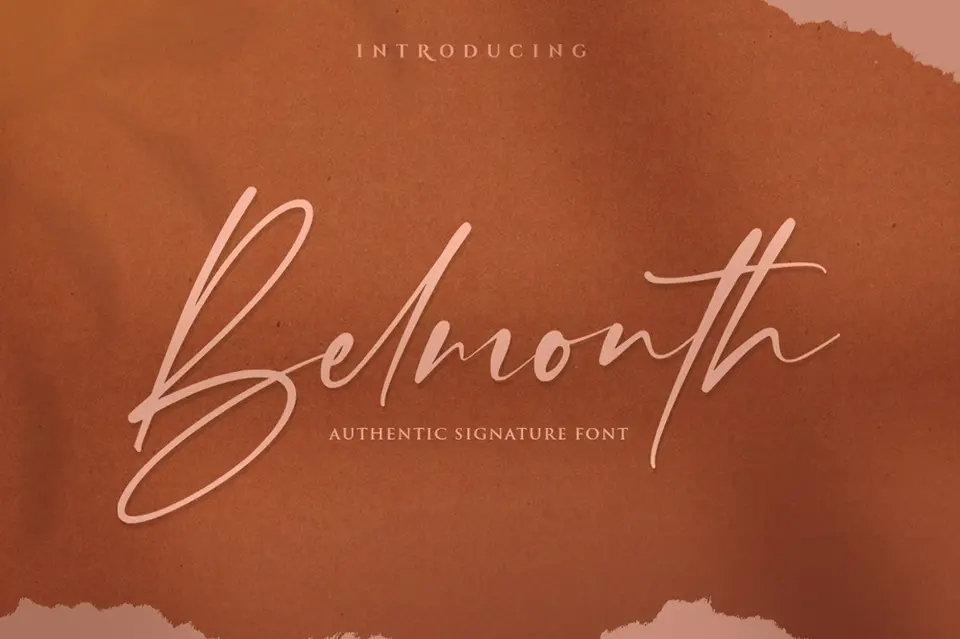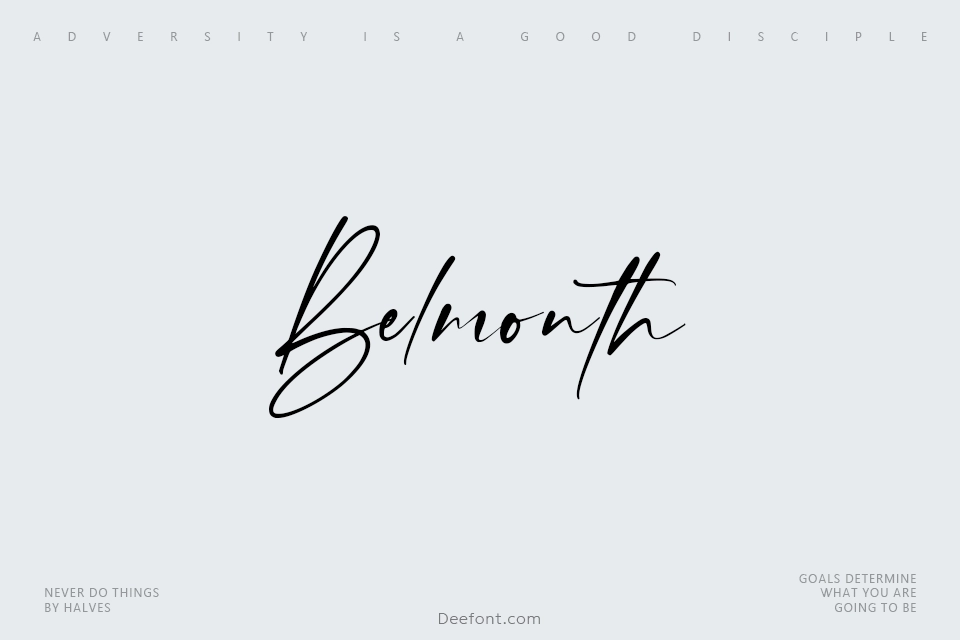
Belmonth Font
Belmonth is an elegant script and calligraphy typeface that captures sophisticated charm with its flowing strokes and graceful letterforms. Ideal for wedding invitations, formal occasions, and high-end design projects, this distinctive font brings timeless elegance and refined character to your typography. Perfect for designers seeking to add a touch of class and creativity to their professional work.